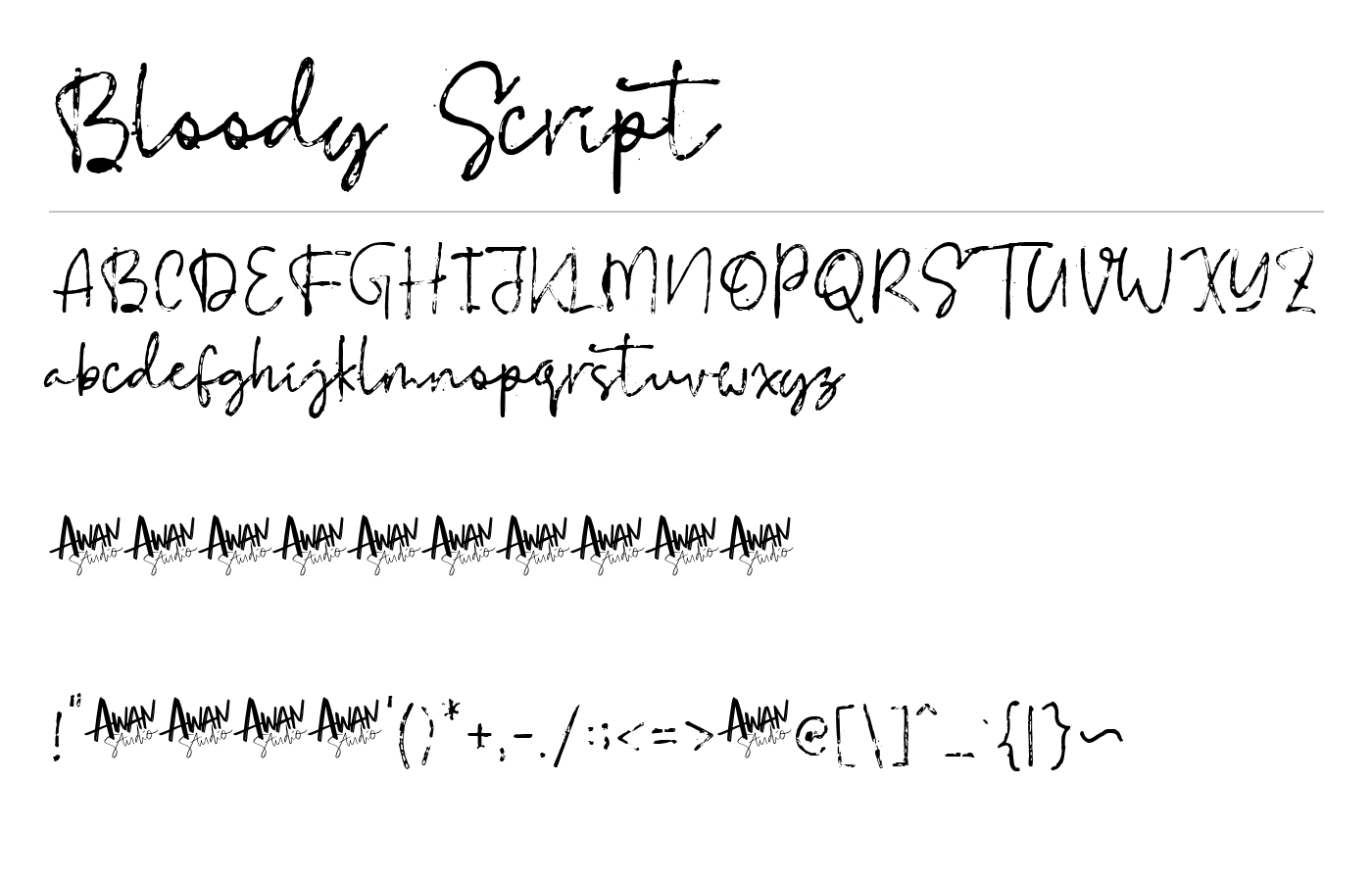
Bloody Script is a rough, hand-drawn script font that features uneven, textured strokes with a gritty, distressed look. Its irregular letterforms and imperfect lines give it a raw, edgy personality, making it perfect for creative projects that want to convey a bold, rebellious, or horror-inspired vibe. This font works well for posters, branding, and designs where a striking, informal, and artistic style is desired.
Bloody Script Font
About Bloody Script Font